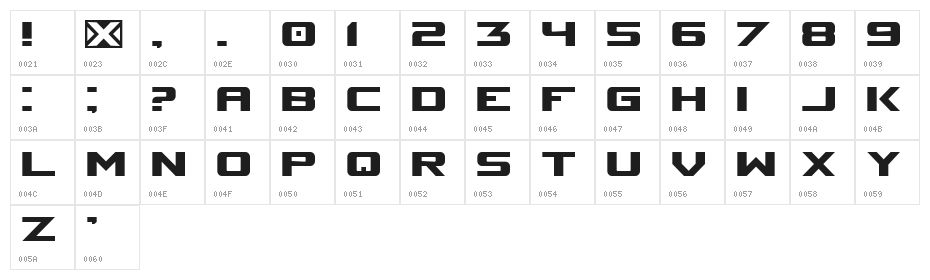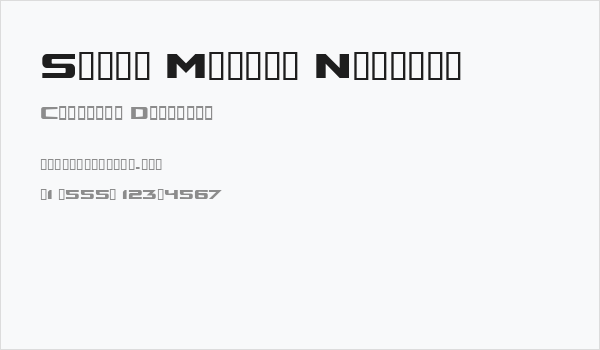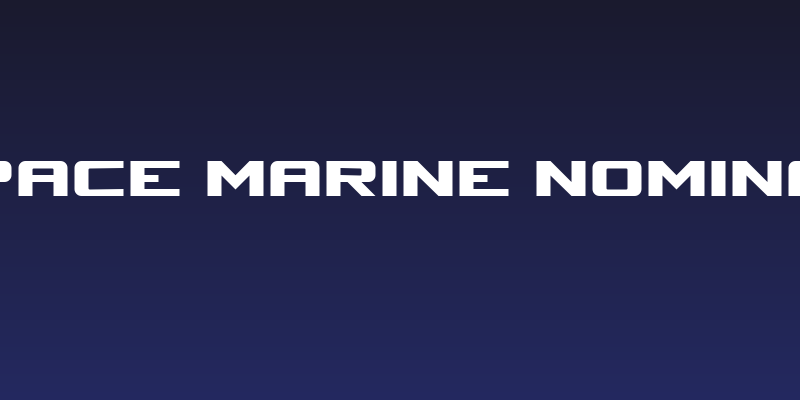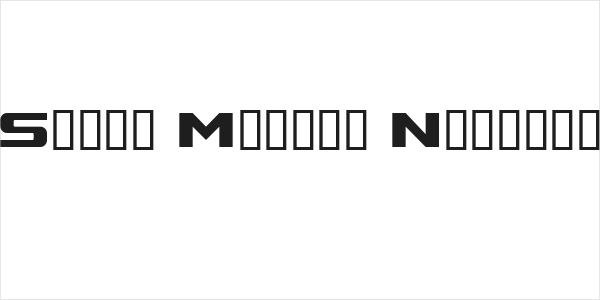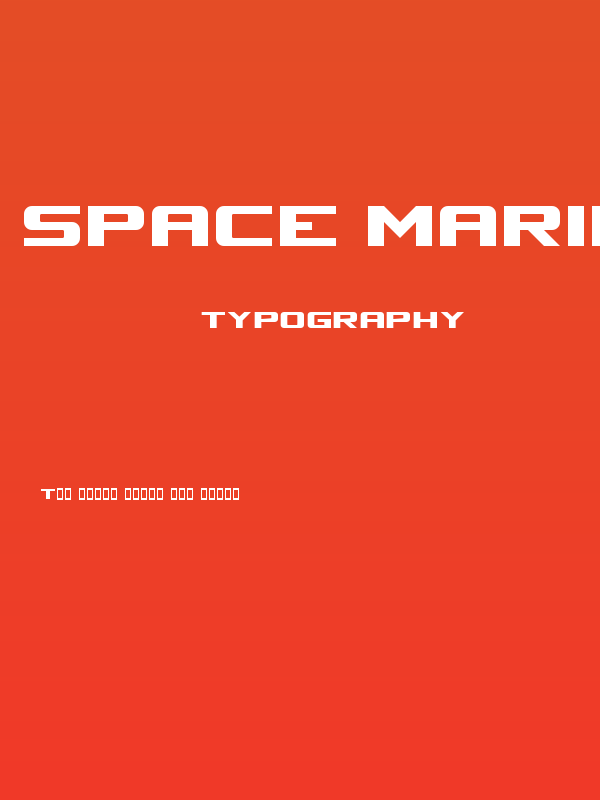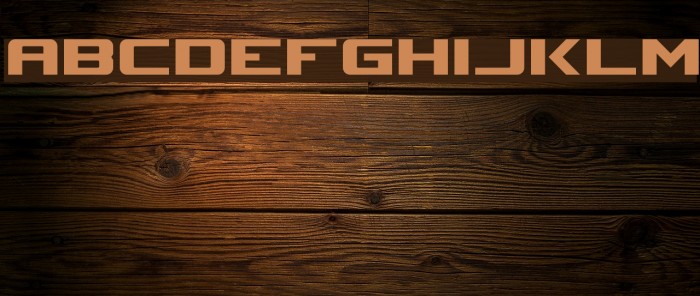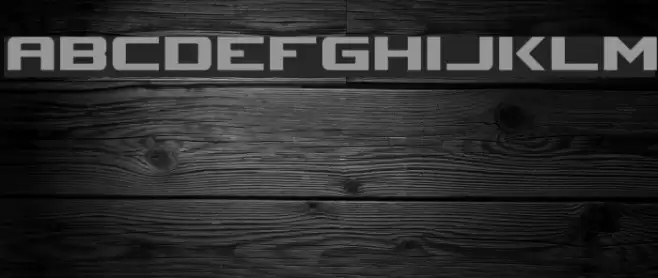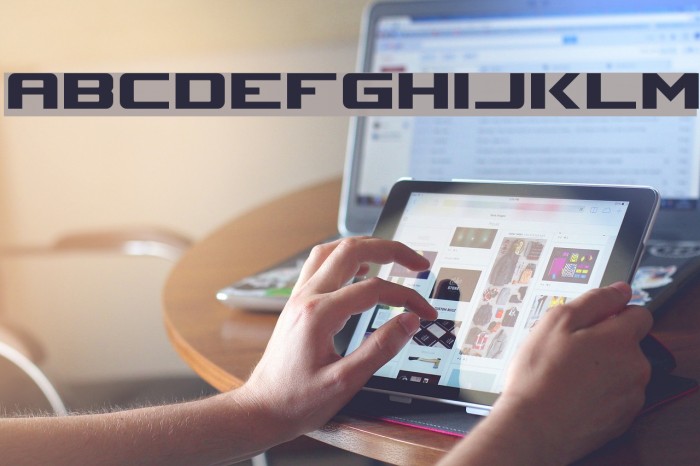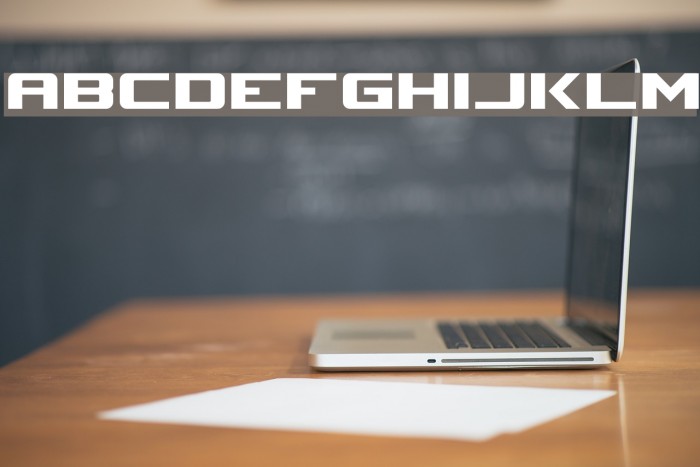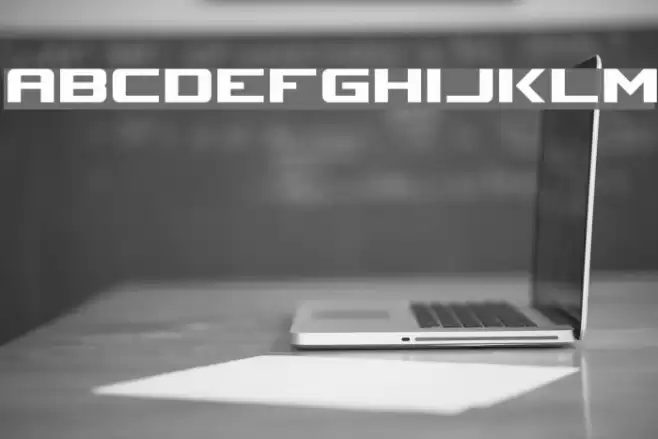
Space Marine Nominal Font
Space Marine Nominal Description
This font features a bold and futuristic design, characterized by its blocky and geometric letterforms. The uppercase letters are uniform in height, with sharp angles and a consistent stroke width that conveys a sense of strength and modernity. The numerals and special characters maintain this robust style, ensuring a cohesive look across all glyphs. The font's design is reminiscent of sci-fi and tech-inspired aesthetics, making it ideal for projects that require a modern and bold visual impact.